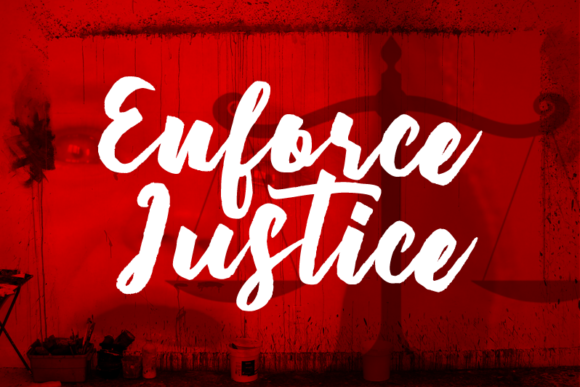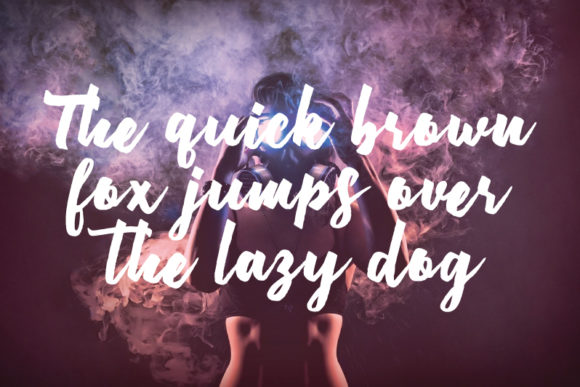
HomeScript FontsEnforce Justice Font Script Fonts Enforce Justice Font FacebookXPinterestWhatsApp Enforce Justice Font Poster 2 About Enforce Justice Font is a textured brush font with a cool vibe. It will add a unique feel to any design idea! DOWNLOAD ON CREATIVE FABRICAThis font is sold and delivered by Creative Fabrica. Font Canyon may earn a commission if you buy through this link. People also explored Mango Farmhouse Skate Fall Font Dog Paws Font Rachel Font Bloonder Font Stay Hungry Font Objectives Font Casary Font Bolaster Font 265 0 TagsEnforce Justice Font Previous articleMustango FontNext articleRandom Brush Font LEAVE A REPLY Cancel reply Comment: Please enter your comment! Name:* Please enter your name here Email:* You have entered an incorrect email address! Please enter your email address here Website: Save my name, email, and website in this browser for the next time I comment. Personal Use Free Child Witch Personal Use Free Read more about this font Ennobled Pet Personal Use Free Read more about this font Anjhay Personal Use Free Read more about this font Die Nasty Personal Use Free Read more about this font BLOG Using Fonts in Digital Marketing: Tips to Strengthen Your Brand Identity In the realm of digital marketing, every visual element plays a crucial role in shaping a brand's identity, and fonts are no exception. The... How to Cut Any Font on Cricut: Convert a Font to SVG (Free) Top 7 Google Fonts Alternatives for Faster and Privacy-Friendly Web Design (2025) Best Fonts for T-Shirt Design – Top 2025 Picks